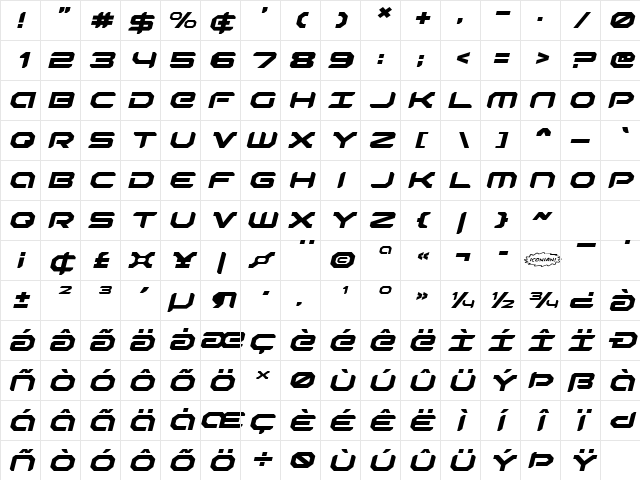
Robotaur Expanded Italic Italic
Design Context for Robotaur Expanded Italic
Robotaur Expanded Italic is a composed and adaptable typeface that performs quietly and consistently across a wide range of design contexts. The slanted form adds forward momentum and visual energy.